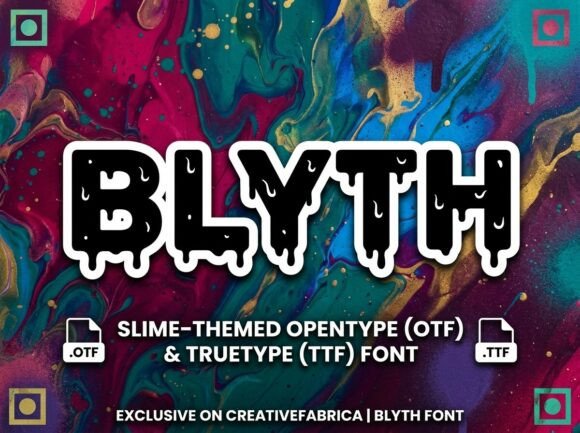
Blyth Font: A Stunning Decorative Display Font for Creative Minds
Are you tired of using the same old fonts for your creative projects? Look no further than the Blyth Font, a unique and artistic display font designed to make a statement. With its strong visual personality and decorative elements, this font is perfect for creators who want to break away from the ordinary and add a touch of elegance to their work.
What Makes Blyth Font So Special?
The Blyth Font is a decorative display font that is sure to turn heads. Its unique artistic elements and strong visual personality make it perfect for bold headlines, artistic logos, and creative packaging. Whether you’re a designer, crafty DIY enthusiast, or entrepreneur, this font is versatile enough to meet your needs while maintaining a professional and polished finish.
Key Features of Blyth Font
- Unique Artistic Elements: The Blyth Font features intricate and decorative elements that add a touch of sophistication to any project.
- Strong Visual Personality: This font has a distinct personality that is sure to make your work stand out from the crowd.
- Versatile: Use the Blyth Font for bold headlines, artistic logos, and creative packaging to add a professional and polished touch to your work.
- ALL-CAPS (Uppercase Only): This font is specifically designed for high-impact headlines, logos, and decorative initials, with every letter being a work of art.
Who Can Benefit from Blyth Font?
The Blyth Font is perfect for:
- Graphic Designers: Add a touch of elegance to your designs with this unique and artistic font.
- Crafty DIY Enthusiasts: Use the Blyth Font to create beautiful and eye-catching crafts, such as handmade cards, invitations, and signs.
- Entrepreneurs: Establish your brand identity with a strong and professional font that is sure to make a statement.
Tips for Using Blyth Font
Here are some tips for getting the most out of the Blyth Font:
- Use it for Headlines: The Blyth Font is perfect for bold headlines and titles that need to make a statement.
- Experiment with Colors: Try pairing the Blyth Font with different colors to add an extra touch of elegance to your work.
- Mix and Match: Combine the Blyth Font with other fonts to create a unique and eye-catching design.